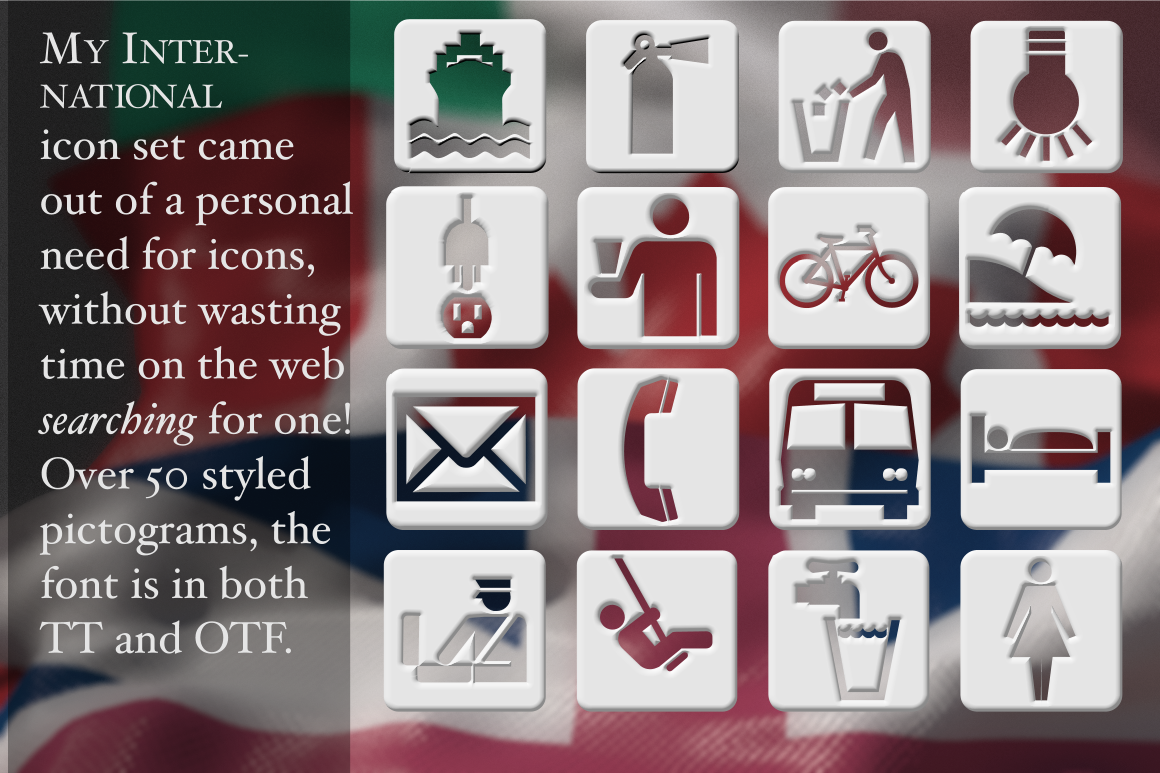
International Symbols Font
They are very simple, clean and to the point. More than 50 of what I felt are the most-used symbols understood around the globe, all in one handy typeface!